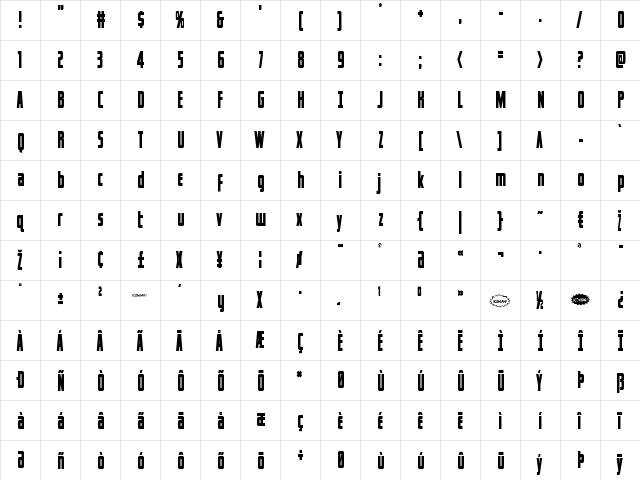
Captain Canaveral Condensed Condensed
Design Context for Captain Canaveral Condensed Typeface
Captain Canaveral Condensed is a composed and adaptable typeface that performs quietly and consistently across a wide range of design contexts. Its narrow stance lets it pack a punch even in space-constrained designs.